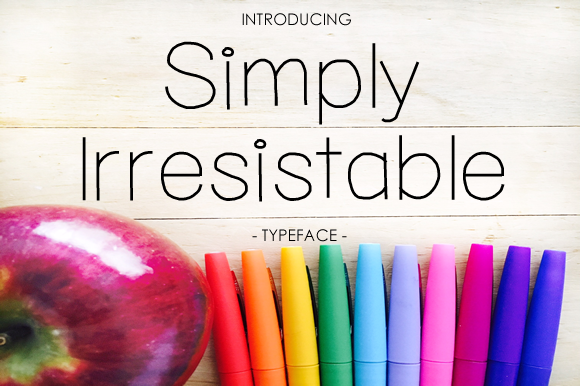
Simply Irresistible Font
Prepare yourself to be swept off your feet by the Simply Irresistible font, a breathtaking sans serif creation that exudes effortless grace and undeniable allure. Its slender strokes evoke a sense of delicate sophistication, inviting you to craft designs that whisper elegance and poise.
Indulge your senses in the charm of Simply Irresistible's display prowess. Each letter dances across the page with an air of effortless style, captivating your audience and leaving a lasting impression. Harness its versatility to elevate body text, effortlessly weaving a tapestry of words that captivates and enchants.
Embrace the timeless beauty of Simply Irresistible. Its refined lines and subtle curves create a visual symphony that will elevate your designs to new heights of sophistication. From captivating headlines to alluring invitations, let this font ignite the spark of creativity within you.